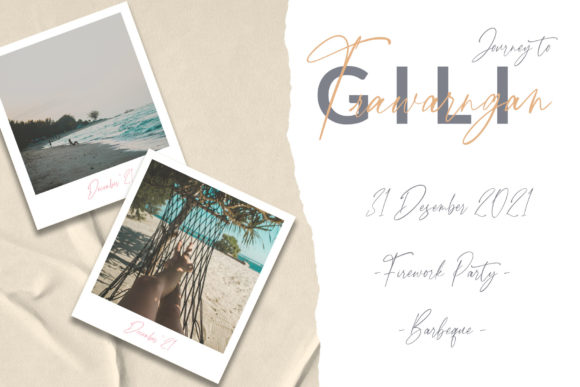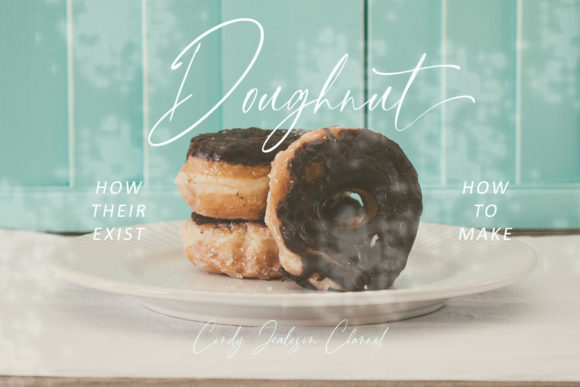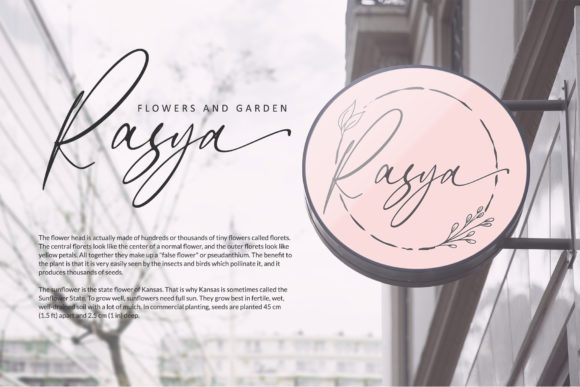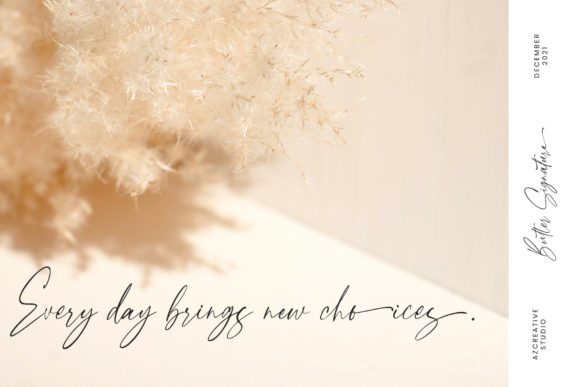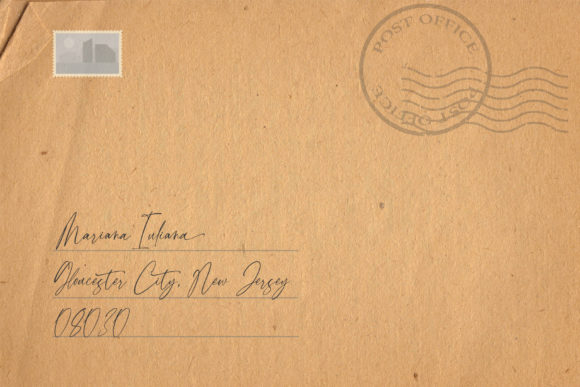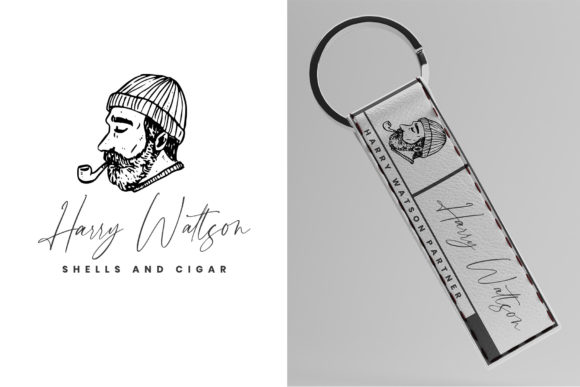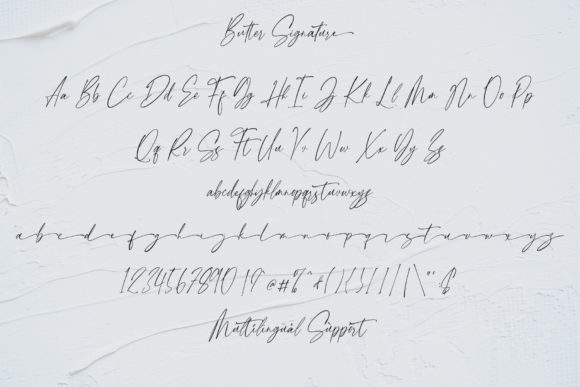
Butter Signature Font
About Butter Signature Font
Butter Signature is a beautiful handwritten font. Its natural and interesting style makes it perfect for various designs such as invitation letters, magazines, posters, accessories, articles, books, and many more. Add it to your fonts’ library, and it will make your projects interesting and outstanding!